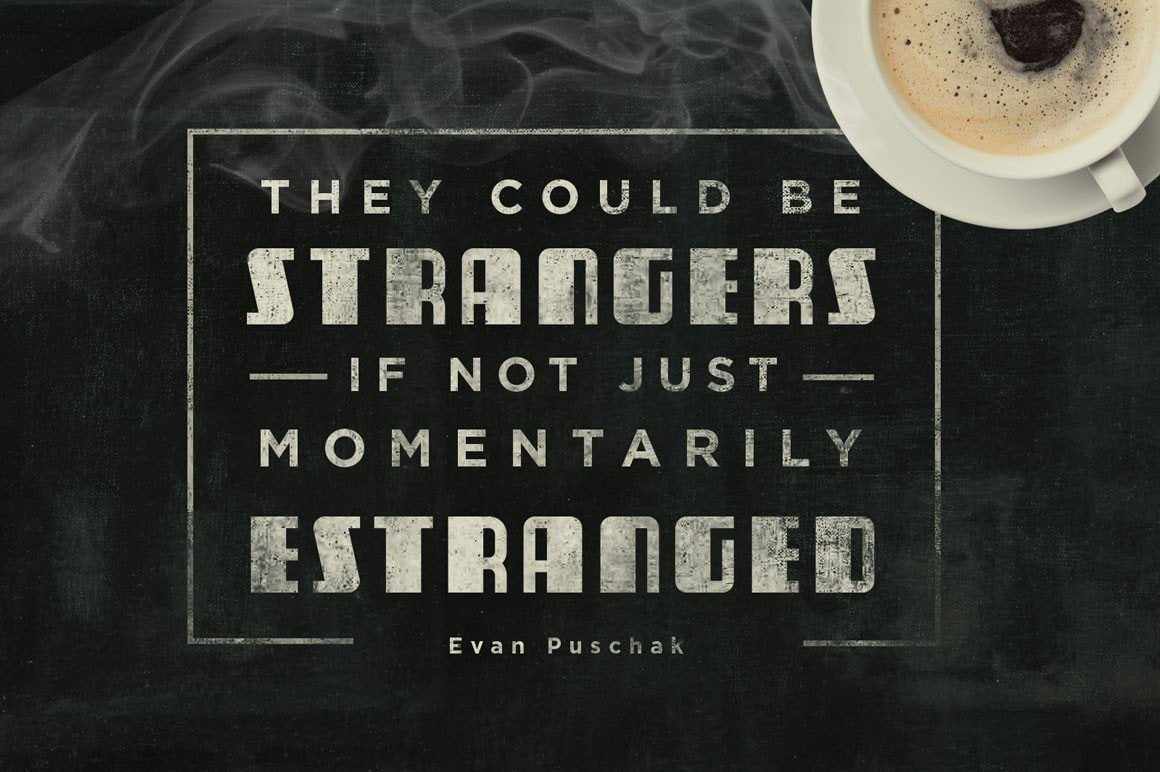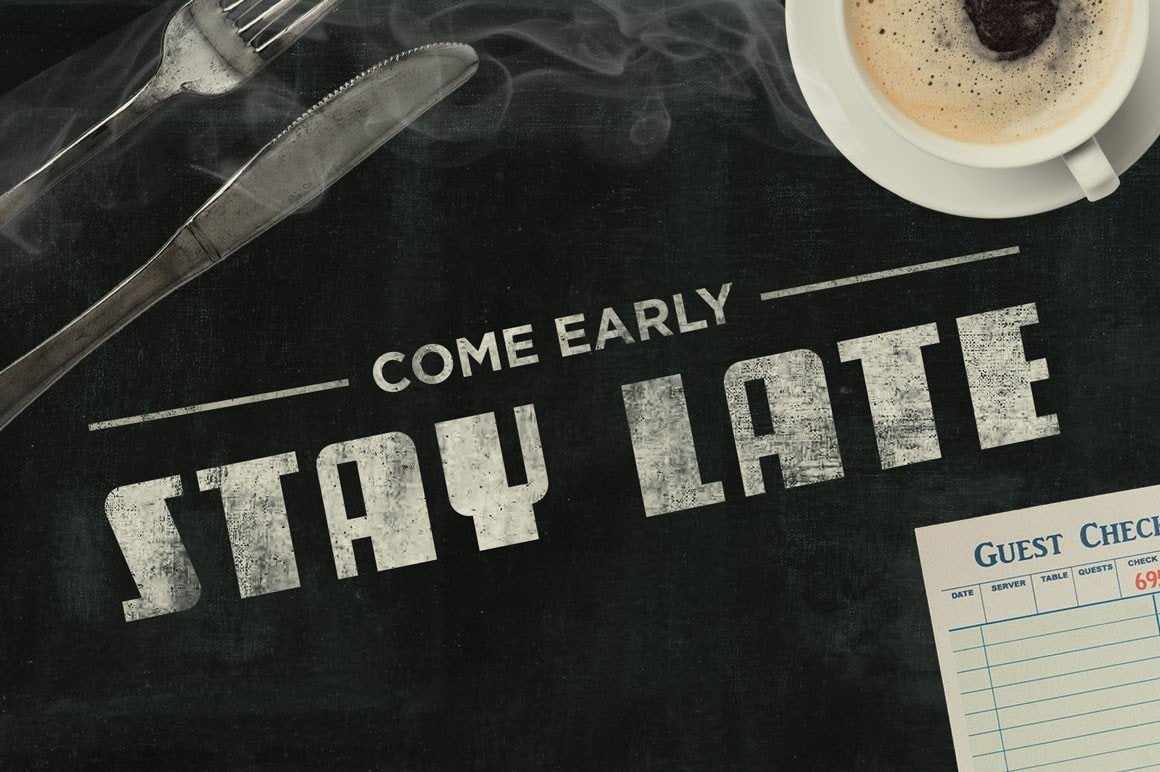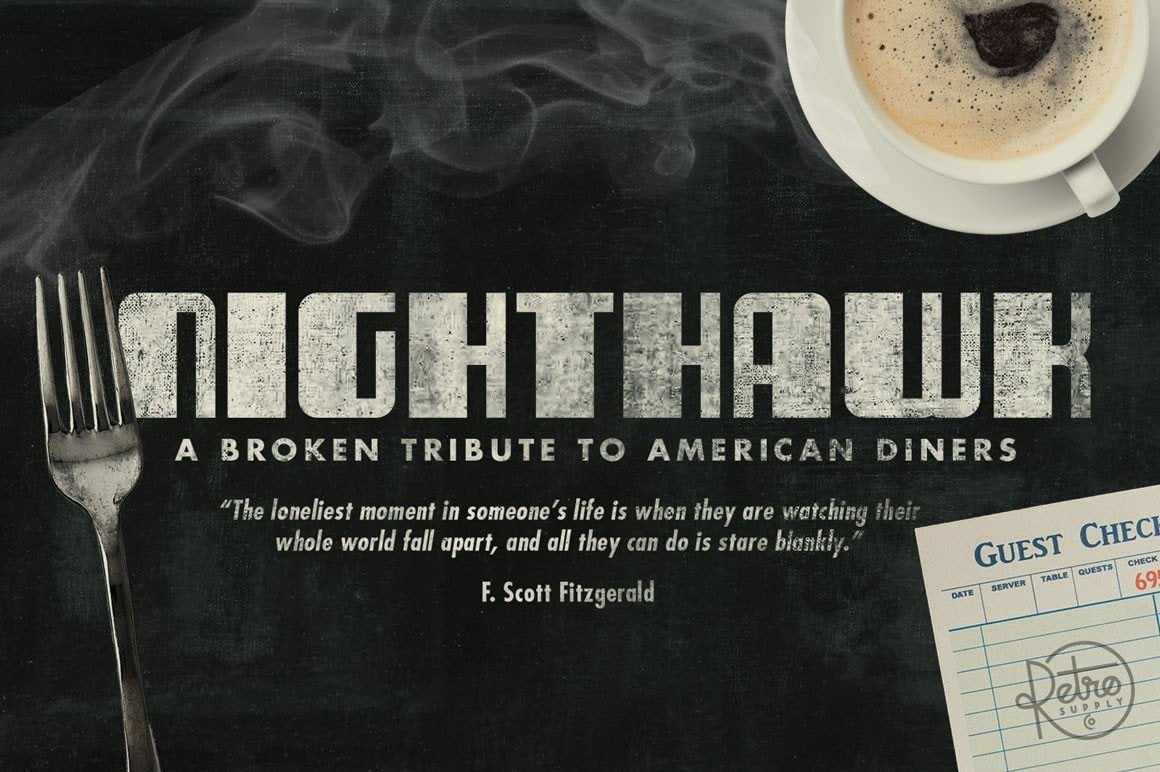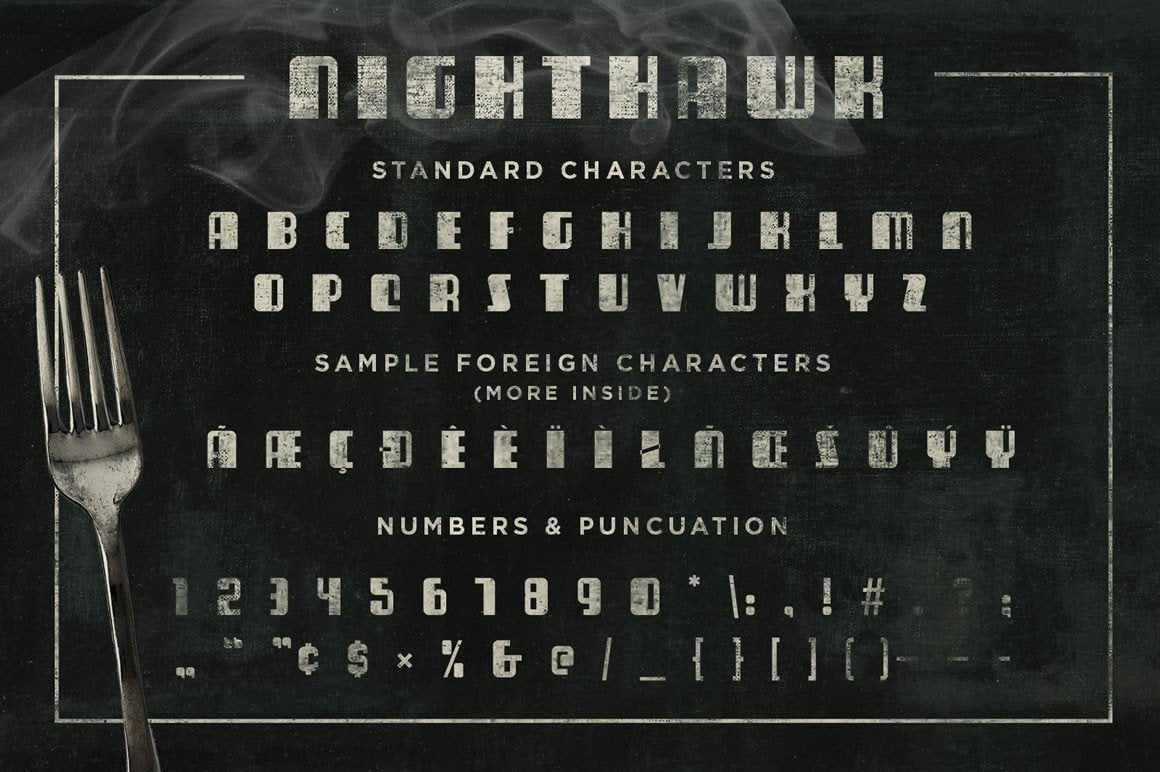
A Font That Pays Tribute to American Diners of the 20th Century
Diners… They’re as American as jazz and baseball.
Inspired by streamlined trains, diners first appeared in the northeast United States. They were pre-fabricated and ready to go out of the box.
Slap one down on an empty lot, flip the open sign, and you’re pretty much in business.
Diners are beautiful in a distinctively American way. But that’s not what really interests me. What I find most fascinating is the role they play in America.
- Inspired by American diner culture of the 20th century
- Created to tell uniquely American stories in your design and branding work
- NightHawk and Over Easy is a single font. The two names reflect the different moods of a diner in the morning and late at night.
Foundry: Designers from Across America
The Two Weird Things That Make American Diners Special
For one, patrons come from a wide spectrum of socioeconomic backgrounds. Any given morning you could find a slice of America in the booths. From car mechanics to lawyers to house painters to doctors. All eating the same short order fare together.
But that’s not all. Because diners are part of a rare club. Real diners were open 24/7 - a club reserved for a select group of establishments including nightclubs, bars, and hospitals.
As a result, you got the morning rush of commuters picking up an affordable breakfast and in the wee small hours of the morning, you had bar patrons stumbling in for a greasy meal to absorb the alcohol before work the next day.
In fact, it could be argued that if you knew nothing about America a diner is the fastest and most immersive way to understand the country.
This Font is a Tribute to American Diners
So it’s with that spirit we bring you a brand new font. We call it Nighthawk.
Nighthawk (a name that pays tribute to Edward Hopper’s classic painting Nighthawks) reflects the late night, melancholy, feel of lonely bar patrons making their way home.
This font is our tribute to an American institution. And like the diners themselves the font has passed through the hands of designers from all across America. Each one helping to tell the font's story.
The Font Made by Designers from Across America
From original designer Scott Fuller, in Atlanta, Georgia. To myself, in Vancouver, Washington. To Dathan Boardman, in Oh Claire, Wisconsin. To Suzanne Sarver, in Mobile, Alabama.
This is a simple font like the simple fare served at American diners. But it’s got soul and it stands out.